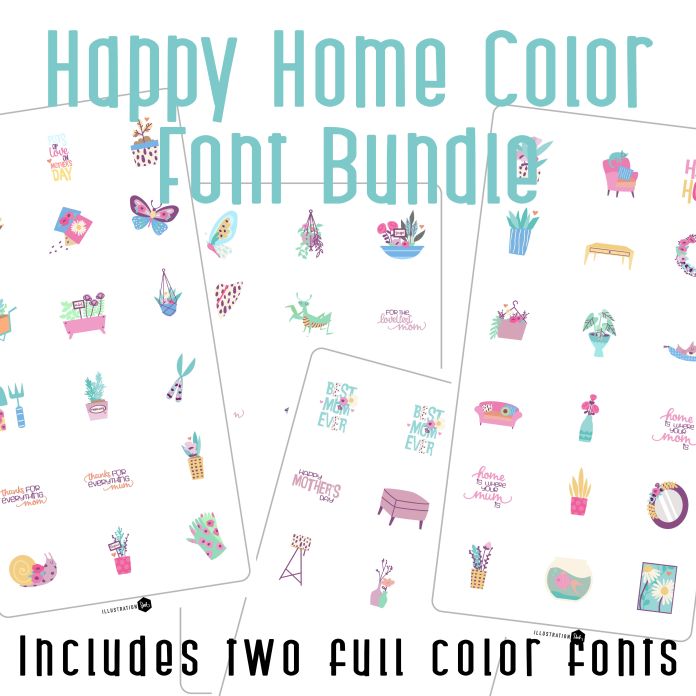
This bundle includes two full color dingbat fonts for one low price! With two color fonts you get 52 total images with 26 gardening imagery and 26 home imagery. Perfect for cards, crafts, gifts, decor, classrooms, planner stickers, scrap book pages and more!